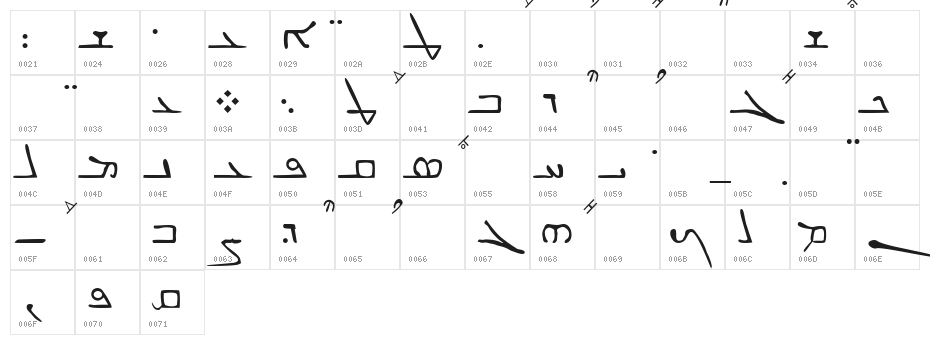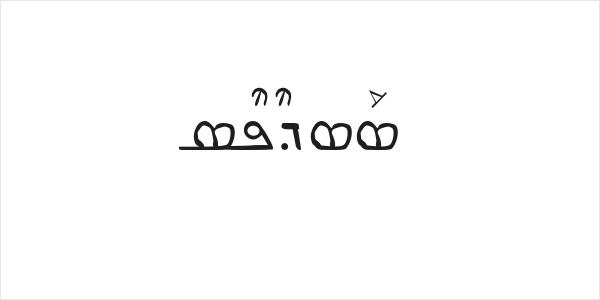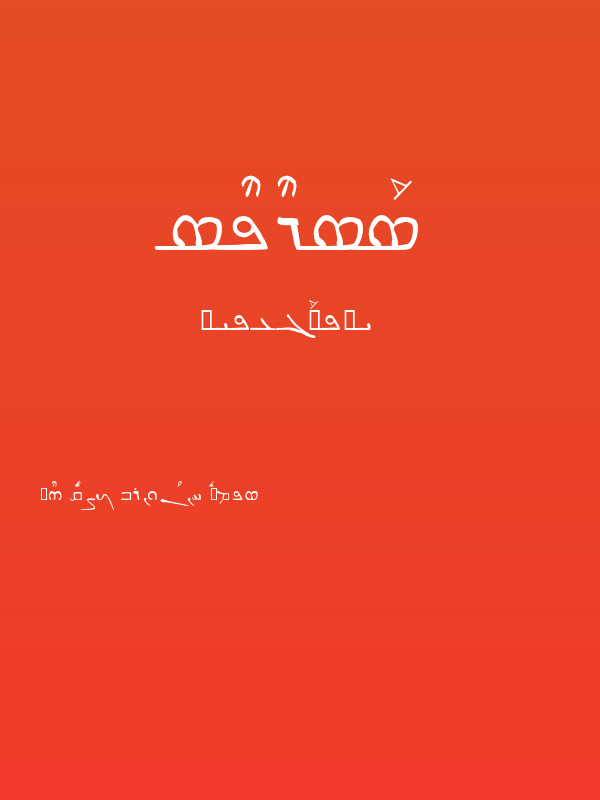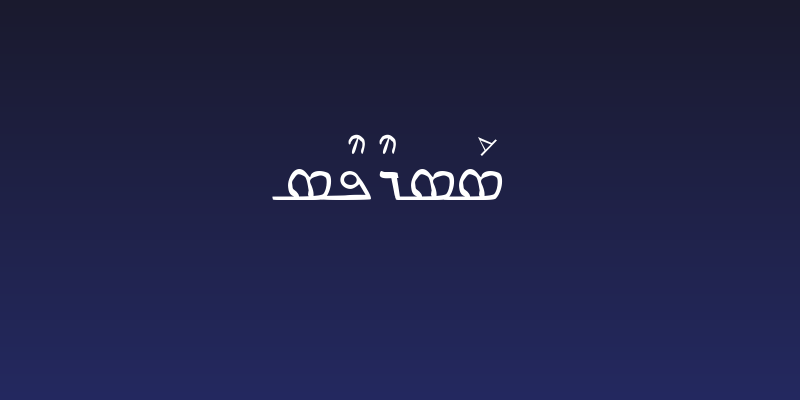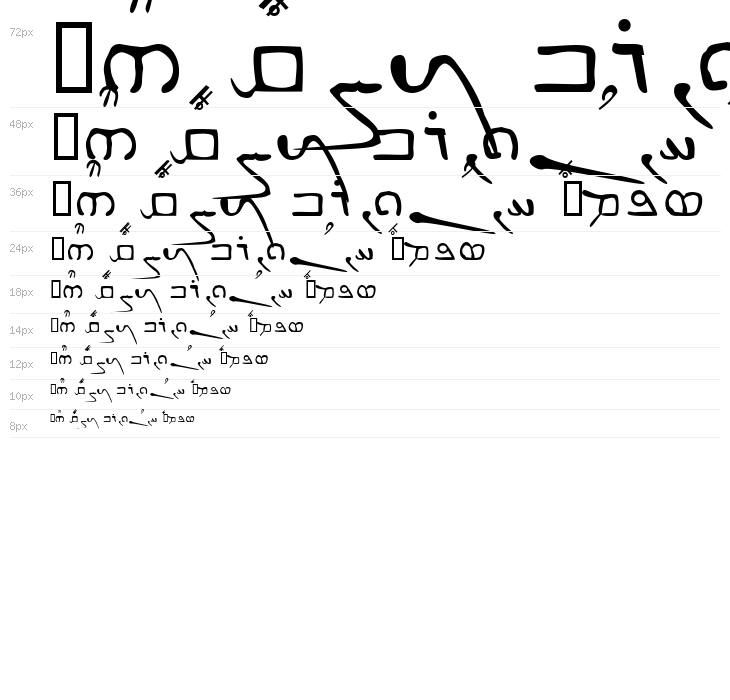
SPEdessa Font
SPEdessa Description
This font features a highly stylized and abstract design, with characters that appear to be inspired by ancient scripts or symbolic writing. The strokes are bold and varied, with some characters incorporating geometric shapes and others featuring more fluid, calligraphic lines. The overall look is unique and artistic, with a strong emphasis on visual impact rather than readability. This font would likely be used for decorative purposes, where the aesthetic is more important than the text's legibility.
| Use Case | Logos, Decorative elements |
| Proposed Projects | Ideal for artistic projects, logos, or decorative elements where a unique and abstract style is desired. |